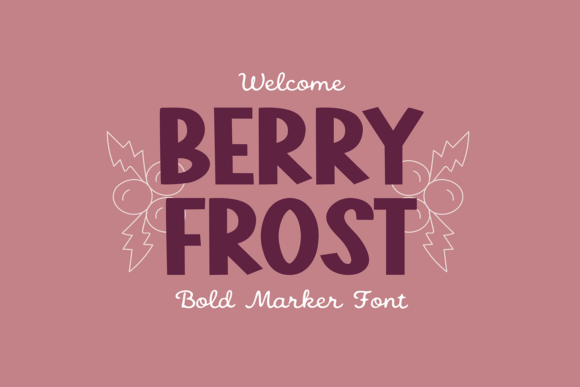
Berry Frost: A Festive Font for Creative Designs
If you're looking for a font that brings warmth, charm, and a playful touch to your creative projects, Berry Frost might be just what you need. This bold hand-lettered marker font stands out with its thick, hearty strokes and lively curves. It's more than just a typeface—it's a visual expression that adds personality and festive flair to any layout.
What Makes Berry Frost Unique?
Berry Frost isn't your average font. Its design blends boldness with a handmade feel, making it perfect for projects that require a touch of whimsy or nostalgia. Each letter carries a sense of movement and texture, giving your text a dynamic, almost tactile quality. Whether you're designing a holiday card, a social media post, or a product label, this font brings a sense of warmth and cheer that's hard to replicate with more traditional typefaces.
One of the most notable features of Berry Frost is its versatility. While it's often associated with Christmas and holiday themes, it works well in many other contexts. The font's playful curves and lush texture make it ideal for branding, packaging, greeting cards, and even digital illustrations. It pairs beautifully with both simple and complex backgrounds, allowing your message to stand out without overwhelming your design.
Creative Uses for Berry Frost
Designers and creators can take advantage of Berry Frost in a variety of ways. Here are some ideas to spark your next project:
- Holiday Signage: Use Berry Frost for Christmas banners, gift tags, or party invitations. Its bold, festive look makes it a natural fit for holiday themes.
- Product Packaging: Whether you're designing for a boutique, a bakery, or a handmade goods shop, this font adds a friendly, approachable feel to product labels and packaging.
- Social Media Graphics: Stand out in crowded feeds with posts that use Berry Frost for headlines or key messages. Its eye-catching style draws attention without being too flashy.
- Personalized Stationery: Create custom greeting cards, thank-you notes, or planners using this font to give your stationery a unique, handcrafted look.
- Digital Illustrations: Incorporate Berry Frost into digital art pieces or quote-based graphics where a handwritten style adds emotional depth and visual interest.
Pairing Berry Frost with Other Fonts
To keep your design balanced and readable, consider how you pair Berry Frost with other fonts. Because of its bold, textured style, it works best when combined with clean, minimalist typefaces. Try using it for headlines or accents and a simpler font like a sans-serif for body text. This contrast helps maintain clarity while letting Berry Frost shine as a design highlight.
Who Can Benefit from Using Berry Frost?
Berry Frost appeals to a wide range of creators, from graphic designers to small business owners. Here's how different users can make the most of this font:
- Designers: Add a distinctive, hand-lettered look to client projects without the time investment of custom illustration. Berry Frost offers a professional yet playful aesthetic that works across design styles.
- Bloggers and Marketers: Use the font in blog graphics, email headers, or promotional materials to create a warm, engaging tone that resonates with readers.
- Entrepreneurs: Whether you're launching a seasonal product or designing packaging for your brand, Berry Frost adds a memorable, approachable touch that helps your business stand out.
- Educators and Hobbyists: From classroom decorations to personal craft projects, this font brings a fun, creative energy that enhances visual learning materials and handmade items.
- Freelancers and Publishers: Incorporate Berry Frost into editorial layouts, book covers, or illustrated content where a bold, expressive font elevates the overall design.
Design Tips for Best Results
To ensure your designs remain clear and effective when using Berry Frost, keep these tips in mind:
- Limit Usage: Use Berry Frost for headlines, titles, or short text blocks. It's bold and expressive, so it works best when used sparingly rather than in long paragraphs.
- Check Legibility: Make sure the text remains easy to read, especially at smaller sizes or on digital screens. Avoid using it in contexts where clarity is crucial, like instructional materials or data-heavy presentations.
- Use Color Thoughtfully: While the font looks great in reds and greens for holiday themes, don't be afraid to experiment with other color palettes. Berry Frost can work in pastels, neutrals, or even monochrome designs depending on the mood you're aiming for.
- Test Across Formats: Whether you're printing or publishing digitally, test how the font looks in different formats and resolutions. This ensures consistency and visual appeal across platforms.
Make Your Designs Stand Out with Berry Frost
Incorporating Berry Frost into your creative toolkit can open up new possibilities for expression and design. Whether you're working on a holiday project, a branding piece, or a personal illustration, this font brings a unique combination of charm, boldness, and warmth. By understanding its strengths and pairing it thoughtfully with other design elements, you can create visuals that feel both professional and deeply personal.
As you explore the creative potential of Berry Frost, remember that the goal is to enhance your message—not overshadow it. Use it with intention, and let its playful curves and rich texture help you connect with your audience in a meaningful, memorable way.